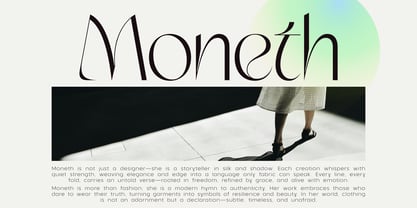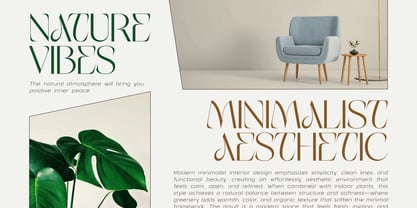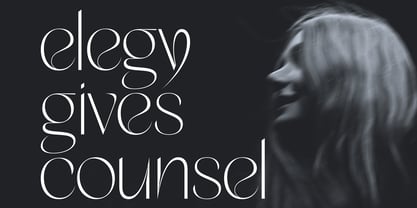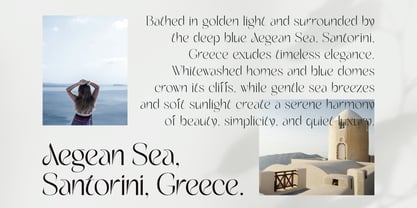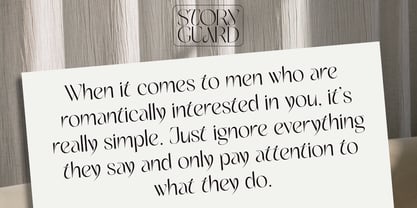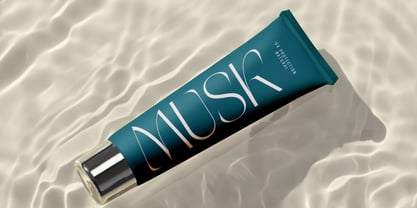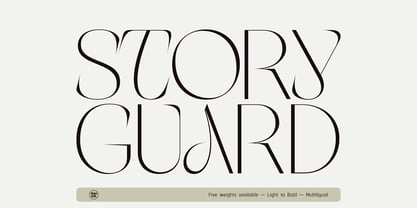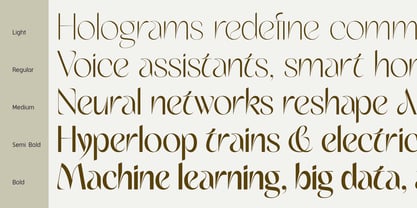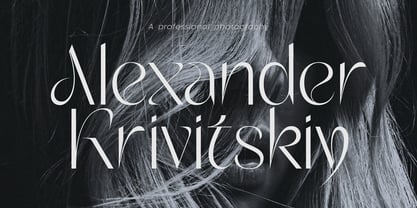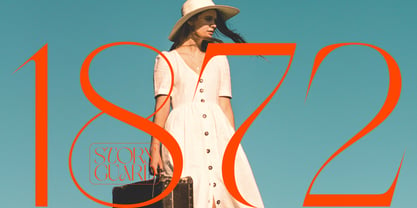
Story Guard
by Sign Studio
The Story Guard Font Family was designed by Sugi Yanto and published by Sign Studio. Story Guard contains 5 styles and family package options. More about this family
Story Guard — Contemporary Display Sans Story Guard is a contemporary display sans crafted for those who value clarity, proportion, and quiet strength. Defined by its clean geometry and subtle humanist nuances, it bridges precision with emotion — making it equally at home in bold editorial layouts, timeless branding, and expressive typographic identities. Each weight, from Light to Bold, carries refined optical balance and a measured rhythm, ensuring harmony across titles, book covers, and logotypes. With a restrained contrast and carefully sculpted terminals, Story Guard embodies both sophistication and warmth. Its form is modern yet enduring — a visual narrative that guards the story it tells, with confidence and grace, making it a versatile choice for various design applications.
Designers: Sugi Yanto
Foundry: Sign Studio